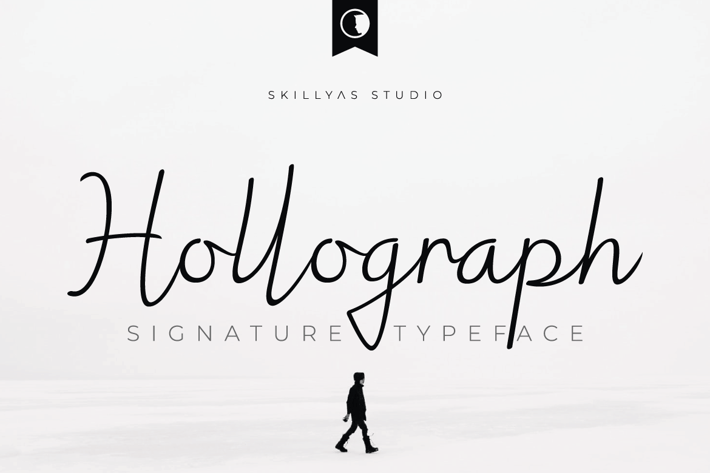
Hollograph Signature Font
Hollograph is A new signature font with smooth shapes and a unique calligraphic style.
It is very usable for creating a logotype, autographs, or digital signatures for your name card or brand.
It is also suitable for cosmetics posters, fashion magazines, book covers, movie titles, or a simple quote design.